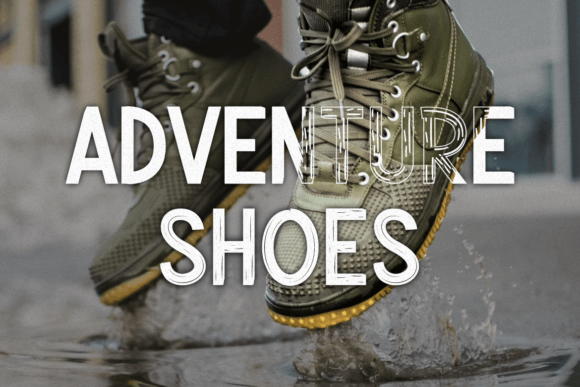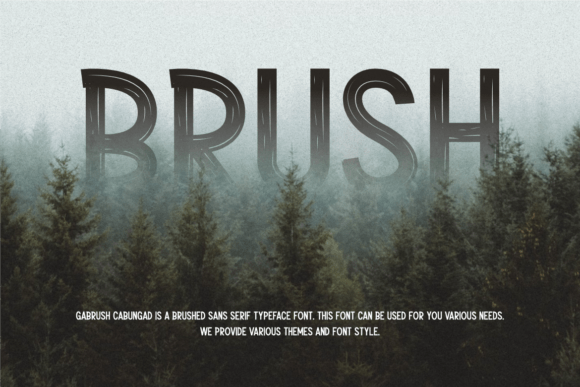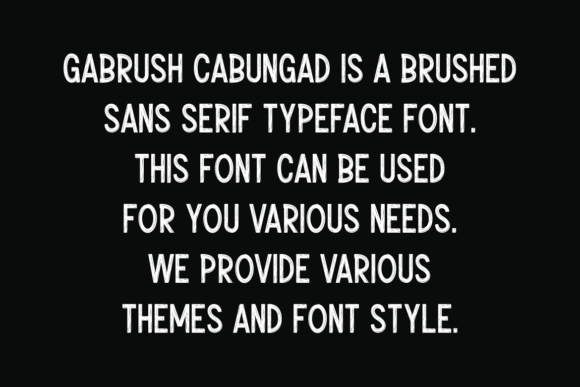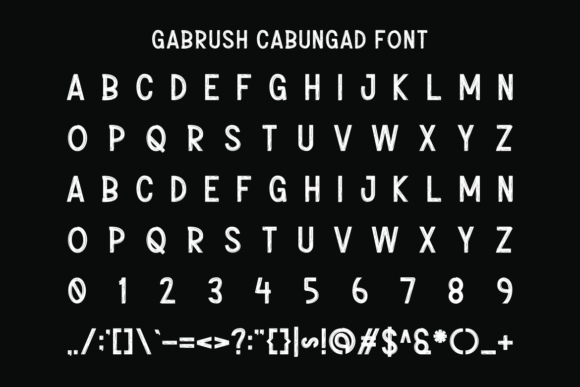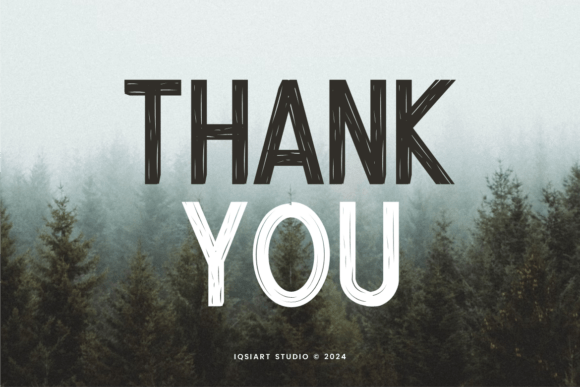
Introduction to Gabrush Cabungad Font Font
Fonts play a crucial role in design, and the Gabrush Cabungad Font font is a typeface that brings both character and versatility to any project. Whether you’re working on a branding project, a website, or a print design, the Gabrush Cabungad Font font offers a unique style that can elevate your work.
Gabrush Cabungad is a brushed sans serif font with a bold and artistic style.
It combines smooth curves and brush-like strokes, making it perfect for creative designs like posters, logos, or branding The font has a modern yet handcrafted look, adding personality to your text.
Key Features of Gabrush Cabungad Font Font
Why Choose Gabrush Cabungad Font Font?
The Gabrush Cabungad Font font is more than just a typeface – it’s a design tool that helps you communicate your message with style and clarity. Its unique character set and versatile design make it suitable for a wide range of applications, from elegant invitations to bold headlines.
With its carefully crafted letterforms and balanced proportions, the Gabrush Cabungad Font font ensures readability and visual appeal across all mediums.
What makes Gabrush Cabungad Font font special?
The Gabrush Cabungad Font font stands out with its unique design, exceptional readability, and versatility across various design applications.